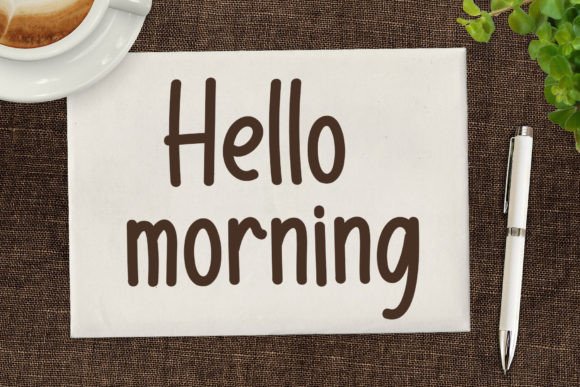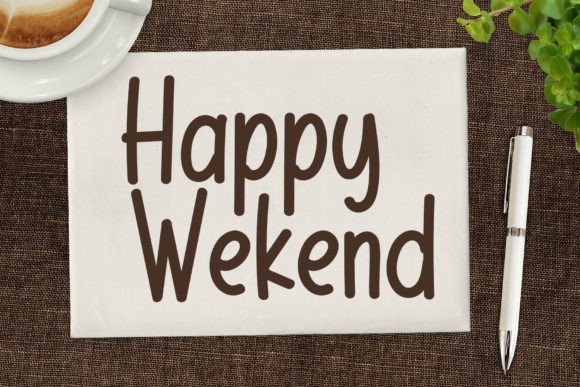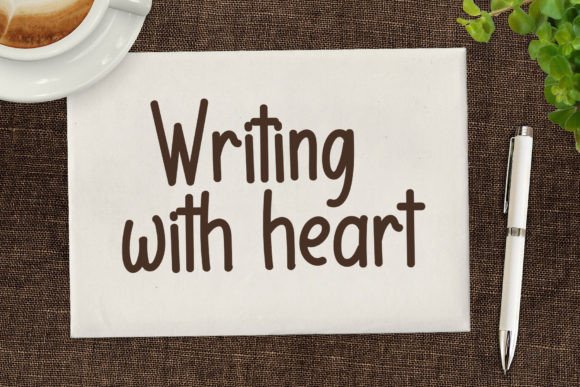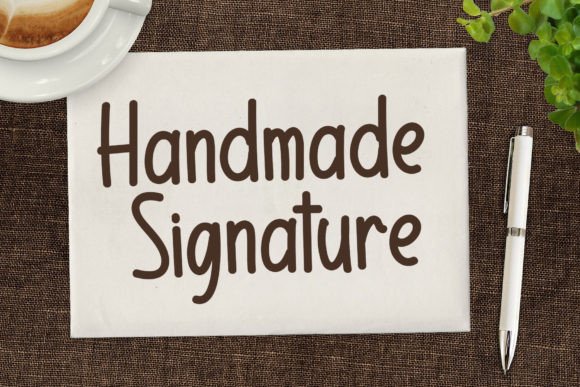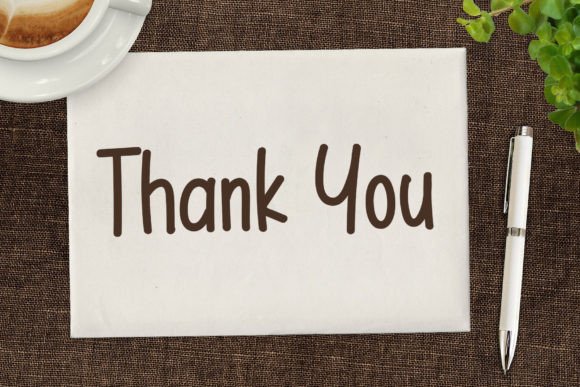
Introducing Graduation Ceremony Font: The Perfect Choice for Your Special Day
Are you looking for a unique and casual-looking display font to make your graduation ceremony invitations, titles, and other informal products stand out? Look no further than Graduation Ceremony Font! Crafted with great care to produce the expected results, this font is sure to impress.
What is Graduation Ceremony Font?
Graduation Ceremony Font is a specially designed display font that exudes a sense of celebration and joy. Its unique and casual design makes it perfect for creating eye-catching titles, invitations, letters, and various other types of informal products. Whether you’re a designer, crafter, or simply someone looking to add a personal touch to your graduation ceremony, this font is an excellent choice.
Key Features of Graduation Ceremony Font
- Unique and Casual Design: Graduation Ceremony Font boasts a distinctive and laid-back design that sets it apart from other fonts.
- Display Font: This font is specifically crafted as a display font, making it perfect for titles, headings, and other attention-grabbing elements.
- Informal Products: Graduation Ceremony Font is ideal for creating informal products such as invitations, letters, and other social media graphics.
- Easy to Read: Despite its casual design, this font is easy to read and understand, making it perfect for conveying important information.
- Graduation Invitations: Create custom graduation invitations that set the tone for your special day.
- Social Media Graphics: Use Graduation Ceremony Font to create eye-catching social media graphics announcing your graduation.
- Titles and Headings: Add a touch of personality to your titles and headings with Graduation Ceremony Font.
- Crafts and DIY Projects: Use Graduation Ceremony Font to add a personal touch to your crafts and DIY projects, such as handmade cards or gift tags.
- Experiment with Colors: Graduation Ceremony Font looks great in a variety of colors, so don’t be afraid to experiment and find the perfect hue for your project.
- Pair with Other Fonts: Consider pairing Graduation Ceremony Font with other fonts to create a unique and visually appealing design.
- Use for Branding: Use Graduation Ceremony Font to create a consistent brand identity for your clients or business.
- Get Creative: Don’t be limited by traditional design rules – get creative and find new and innovative ways to use Graduation Ceremony Font.